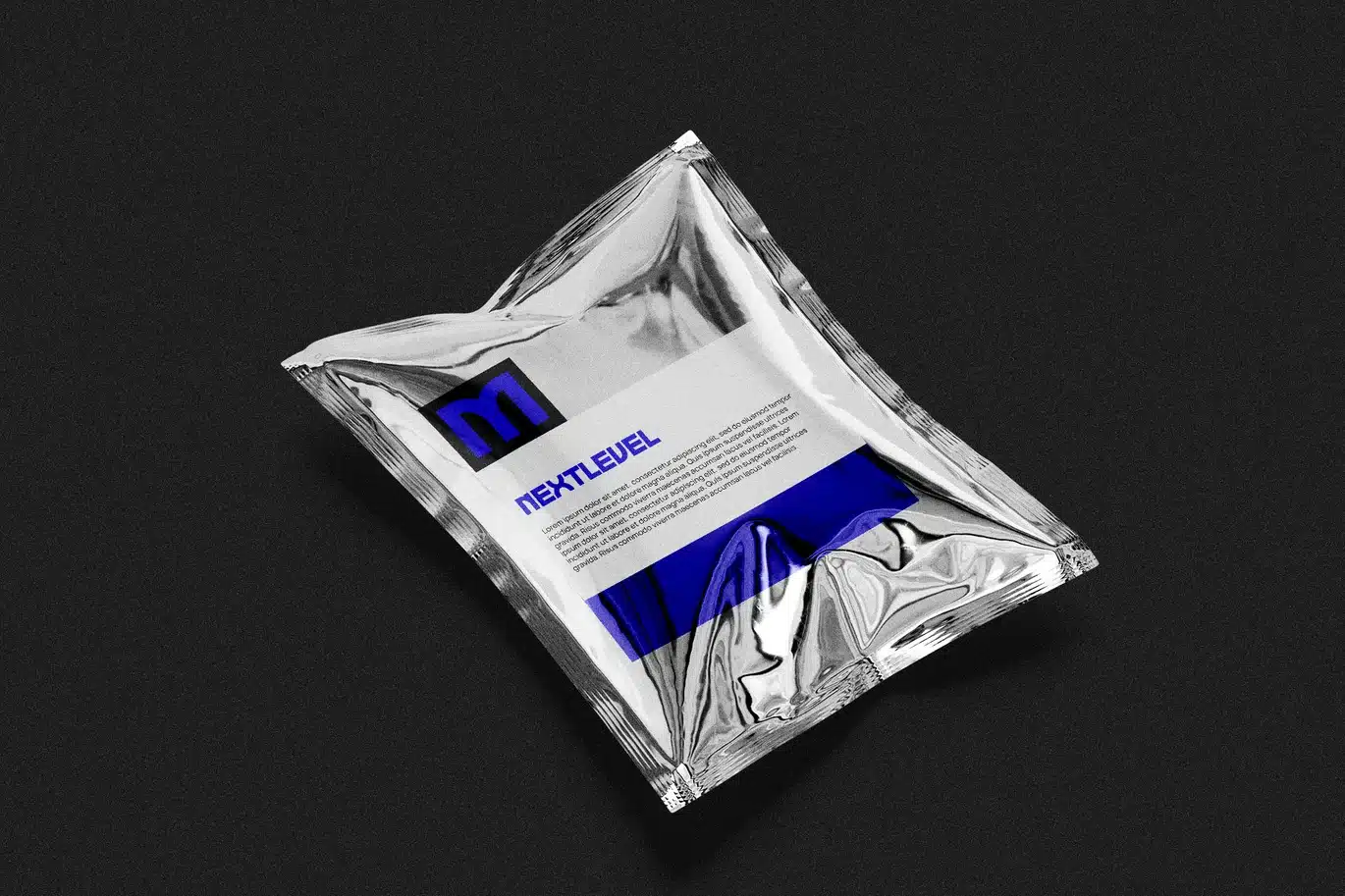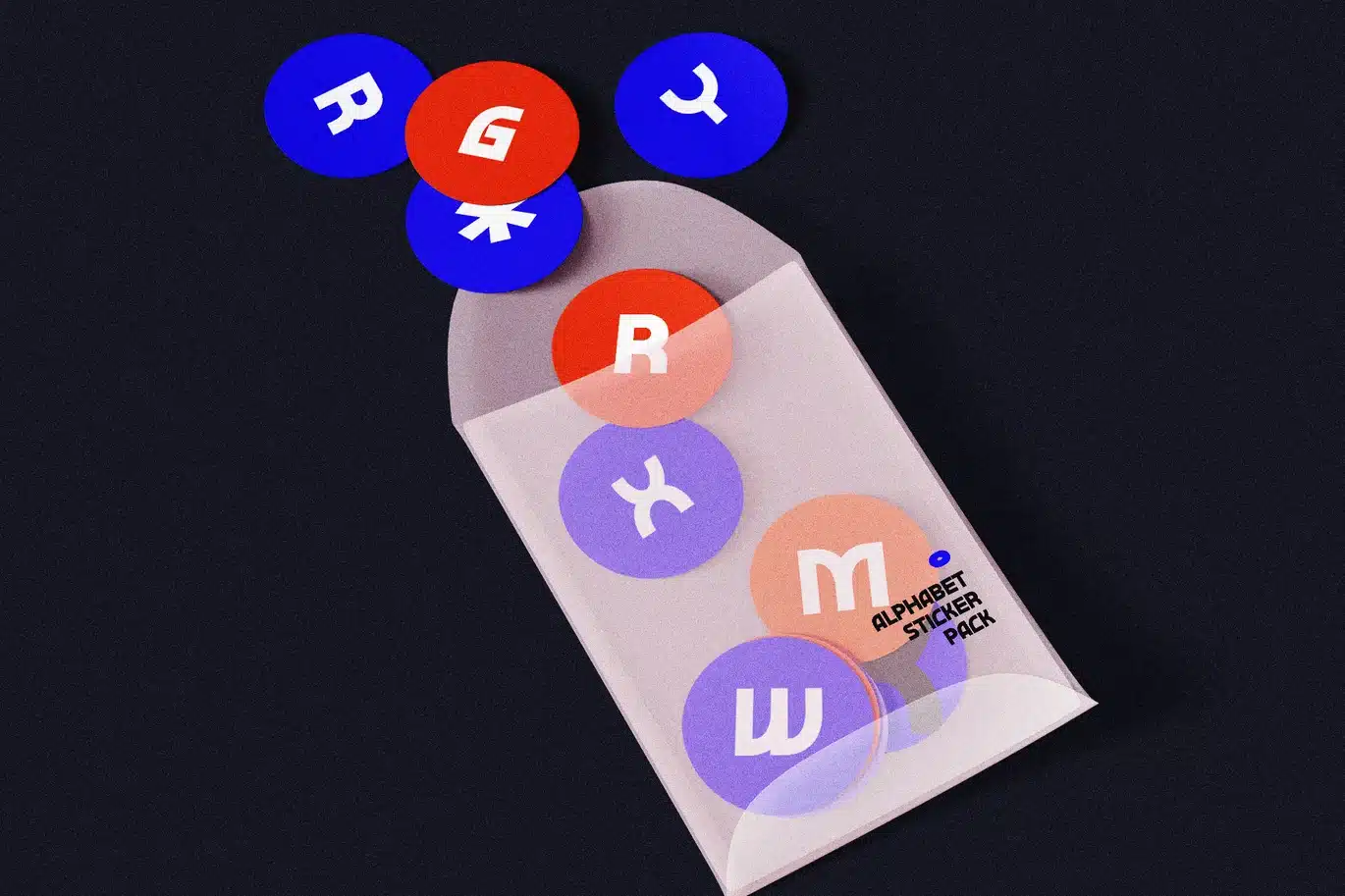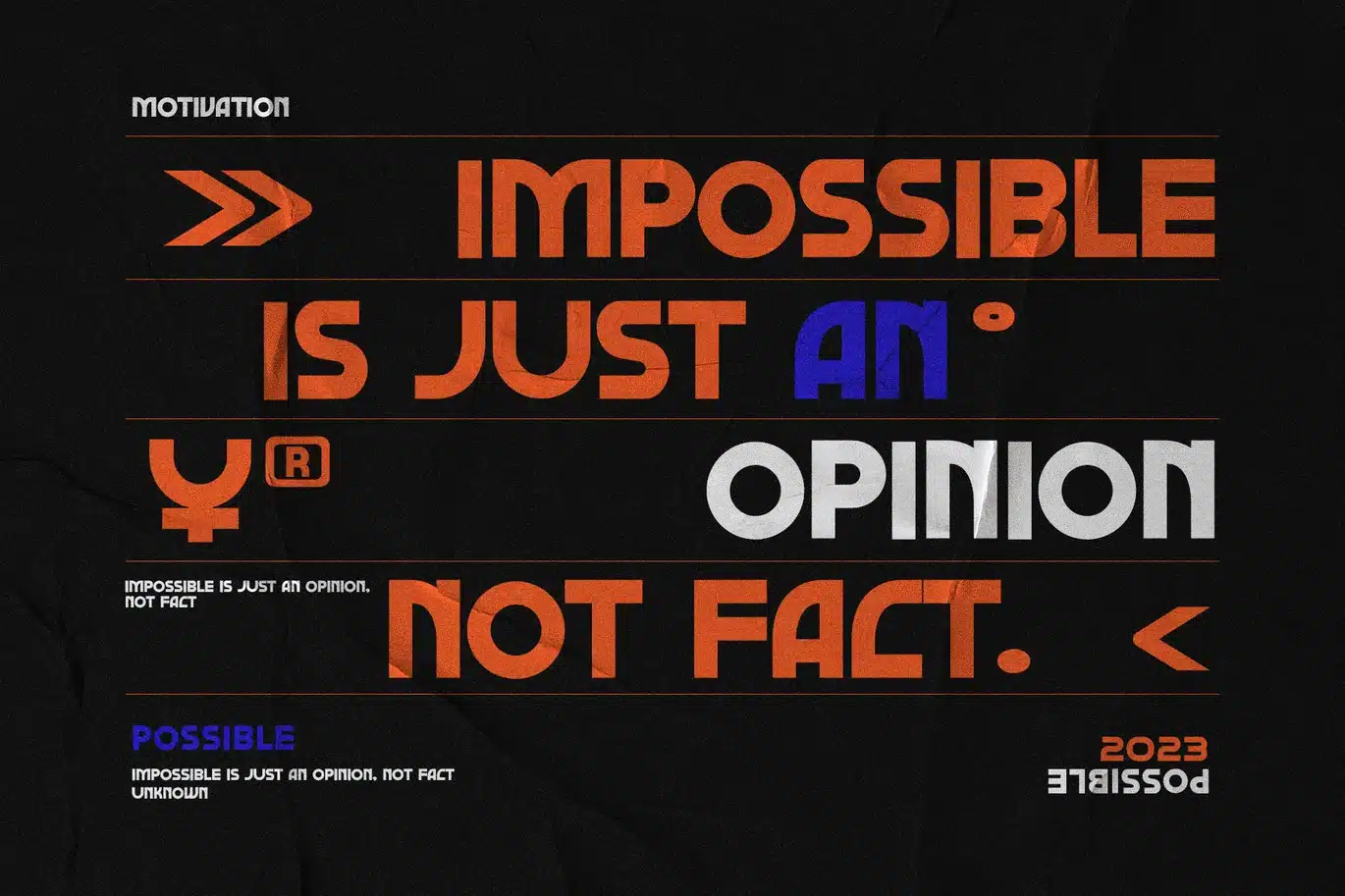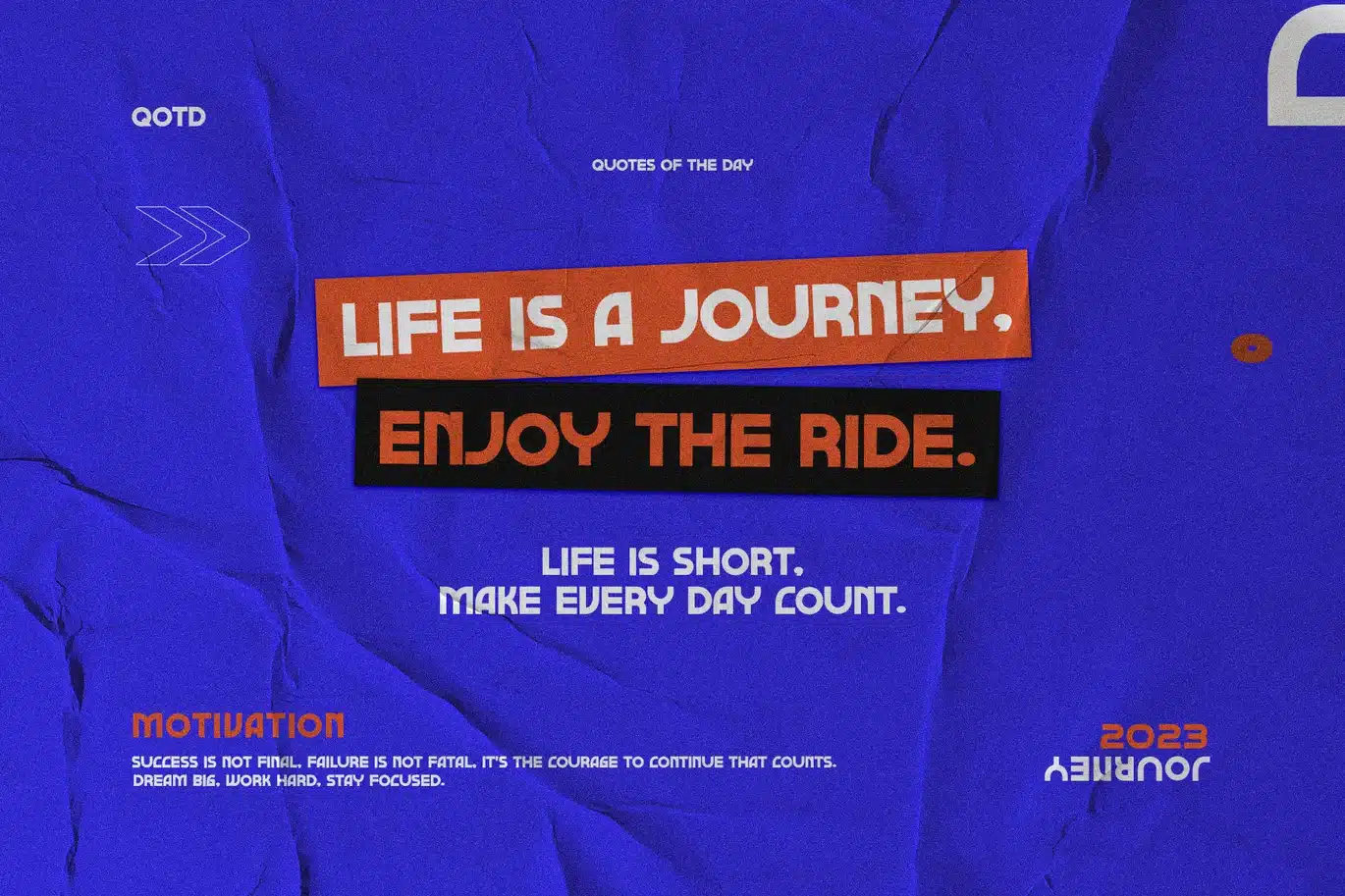
Wolvirun Futuristic Sans Serif Font – Modern Bold
Wolvirun is a modern, futuristic sans serif font designed to help your projects stand out with bold style and clear shapes. It combines sharp geometric forms with smooth lines, creating a fresh look that works well for both print and digital use. Whether you need a font for logos, headlines, posters, or branding, Wolvirun offers a strong and eye-catching design that draws attention quickly.
This font is not only stylish but also easy to read. Because of this, it fits perfectly with tech projects, gaming designs, websites, and ads. Its clean curves and sharp edges create a nice balance between innovation and professionalism. Therefore, your message will connect well with today’s modern audience.
Furthermore, Wolvirun is very flexible. It pairs nicely with simple layouts and futuristic themes. So, you can use it for startups, creative agencies, sports branding, or entertainment projects aiming for a modern feel. The font includes uppercase and lowercase letters, numbers, and symbols to cover all your needs.
Here are the main features of Wolvirun:
Sleek and futuristic design with geometric shapes
Easy to read at both small and large sizes
Works great for headlines, logos, and branding
Clean sans serif style for modern looks
Ideal for tech, gaming, sports, and creative work
Suitable for print and digital use
Includes all essential characters and symbols
In addition, Wolvirun helps create a clear and lasting identity. By using this font, your visuals will look fresh, professional, and up-to-date. It is a smart choice for designers, marketers, and creators who want a strong and modern style.